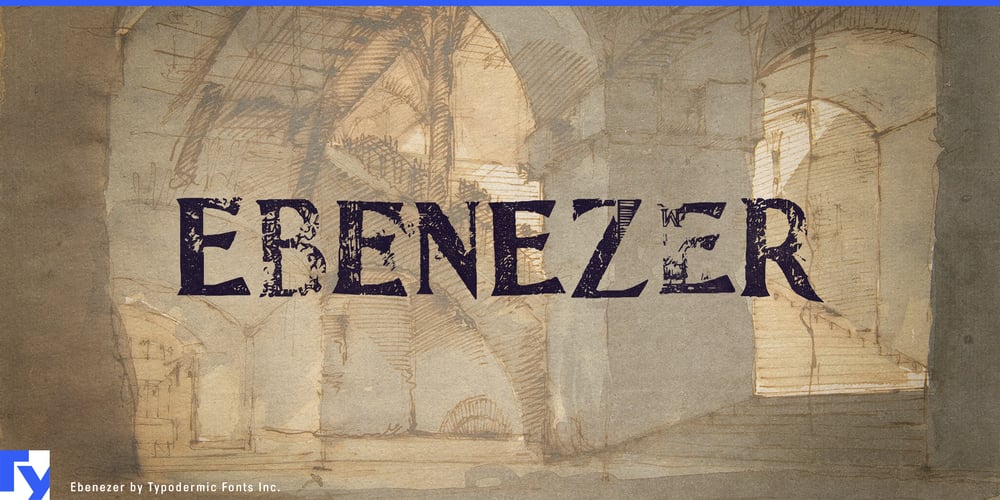
Ebenezer Font Family was designed by Ray Larabie and published by Typodermic. Ebenezer contains 1 styles and family package options. Ebenezer: The typeface that haunts the shadows of typography. This Typodermic Fonts creation is a portal to the darkest corners of the design world, where nightmares take shape and fear becomes form.Inspired by the macabre elegance of Goldburg letterforms, Ebenezer weaves intricate, eerie details into each character. Every curve and serif is a tendril of dread, carefully crafted to evoke a shiver of terror with each glance. But Ebenezer’s true power lies in its unholy union with OpenType technology. As words form, ligatures slither into place, transforming common character sequences into bespoke horrors. Letters don’t just combine—they writhe and twist, forming ghastly shapes that burn themselves into the viewer’s psyche.Imagine your brand name spelled out in Ebenezer, each letter a miniature gothic cathedral of fear. Picture movie posters where titles don’t just announce—they threaten. Envision book covers that reach out with typographic tendrils, pulling readers into worlds of delicious dread before they’ve read a single word. Ebenezer speaks the universal language of fear, supporting a vast array of Latin-based European writing systems. From the misty moors of Scotland to the haunted forests of Transylvania, your message retains its bone-chilling impact across borders.This isn’t a typeface for the faint of heart or lovers of cheerful design. It’s for creators who dance with shadows and find beauty in the macabre. It’s for brands that don’t just want to be seen—they want to be felt, viscerally. It’s for messages that need to do more than communicate—they need to terrify, mesmerize, and linger long after the lights come back on. Ready to summon typographic nightmares? Embrace Ebenezer and watch as your designs transcend the mundane world of daylight typography. In a landscape often bland with safe, forgettable fonts, Ebenezer lurks like a beautifully crafted nightmare, ready to transform every project into a celebration of the delightfully dark.